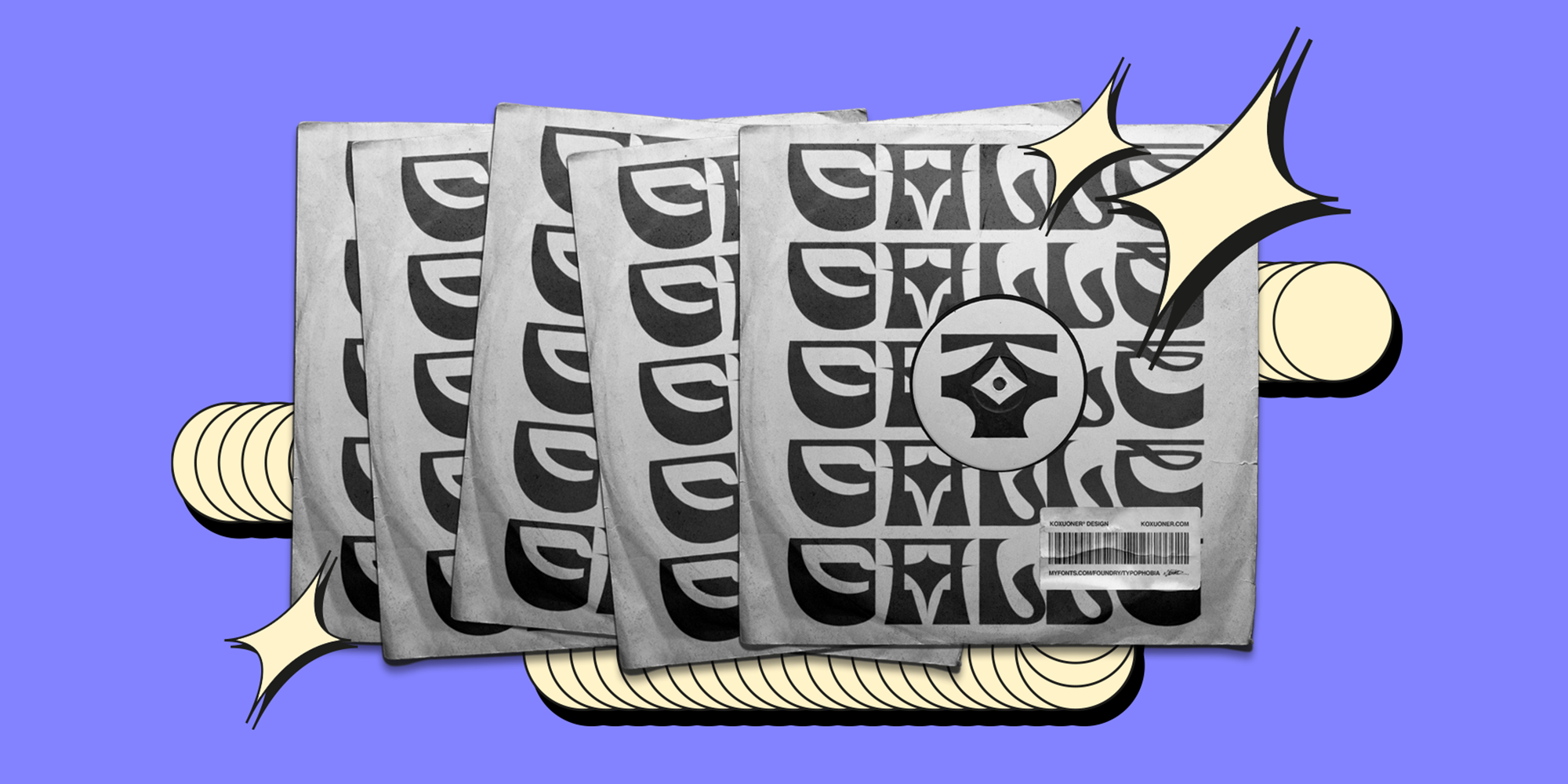
The Galle Font is ideal for Art Nouveau museum exhibitions, vintage glass artistry displays, antique jewelry boutiques, historic preservation societies, ornamental glasswork studios, decorative arts galleries, belle époque-themed events, and artistic heritage organizations. This distinctive typeface excels in applications where ornamental craftsmanship and artistic heritage need to be emphasized, making it perfect for cultural institutions that want to communicate the intricate beauty and sophisticated artistry of decorative arts through historically authentic typography.
What makes Galle Font exciting is its exquisite Art Nouveau character and ornamental glass-inspired elegance that captures the flowing organic beauty of decorative artistic movements. The font's intricate details and artistic flourishes create an atmosphere of refined craftsmanship and cultural sophistication, making it ideal for organizations that want to honor traditional decorative arts while maintaining contemporary relevance. Its ornamental presence ensures that every application feels like a masterpiece of artistic design and cultural appreciation.
The Galle Font family typically includes regular, ornamental, and decorative weights, often featuring Art Nouveau motifs, glasswork-inspired elements, and botanical ornaments that enhance its artistic authenticity. Many versions include flowing vine decorations, organic flourishes, and specialized characters that provide designers with comprehensive tools for creating authentic decorative arts projects with genuine artistic heritage and ornamental sophistication.
For designers working on projects that require artistic authenticity and decorative arts credibility, Galle Font Free Download offers exceptional ornamental elegance. Its ability to instantly communicate artistic heritage and decorative sophistication makes it an invaluable choice for museums, art galleries, and any project requiring typography that embodies the flowing beauty of Art Nouveau design, the precision of decorative glasswork, and the timeless appeal of ornamental artistic traditions.